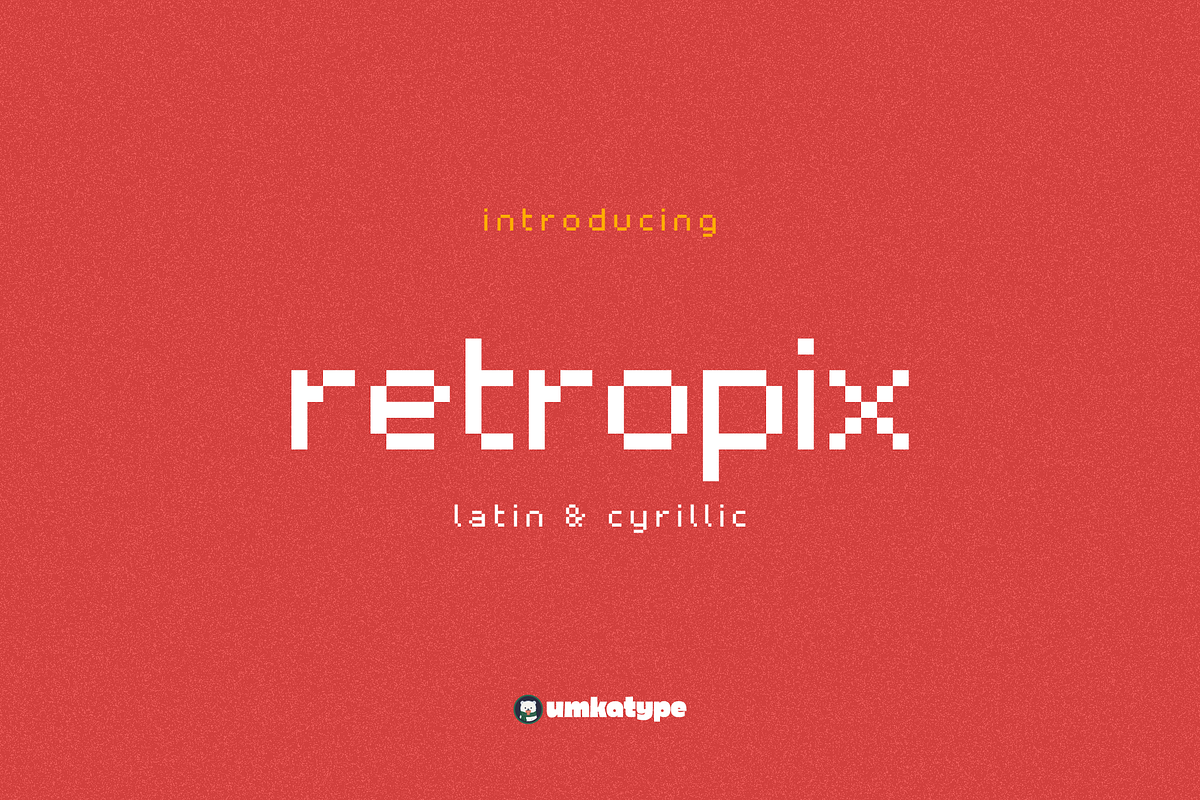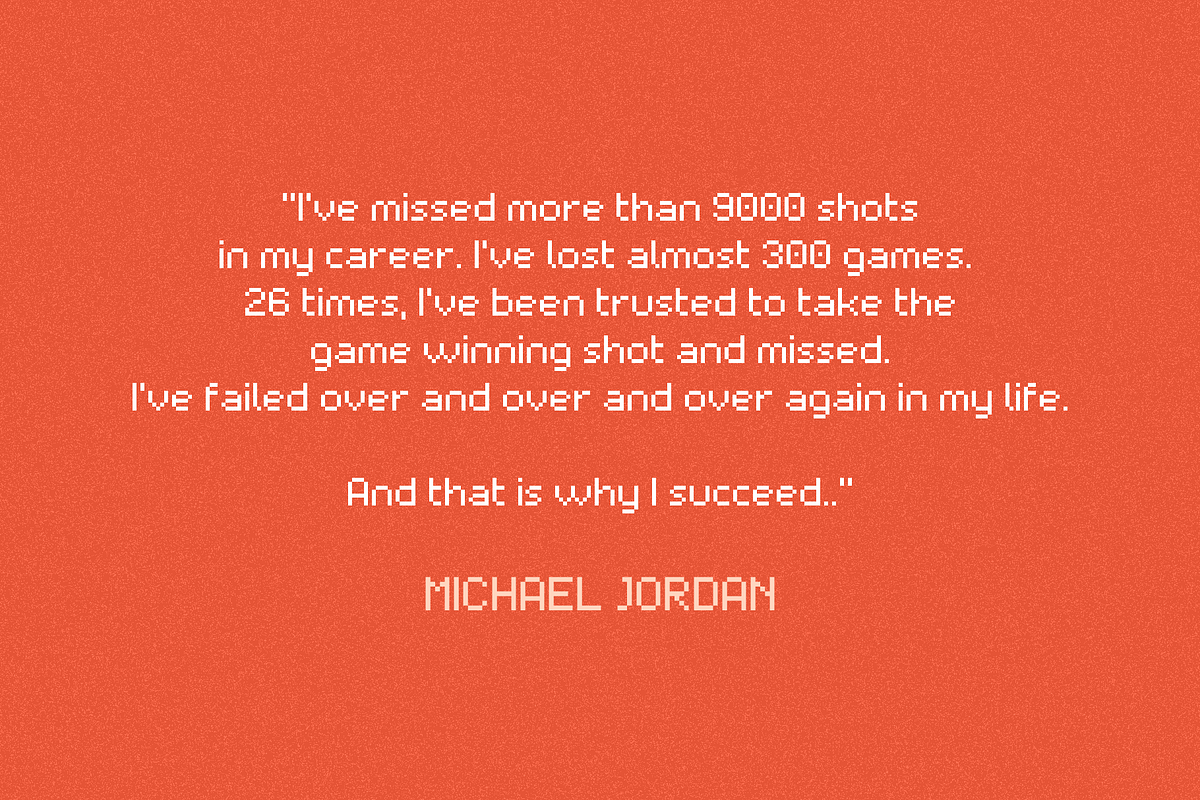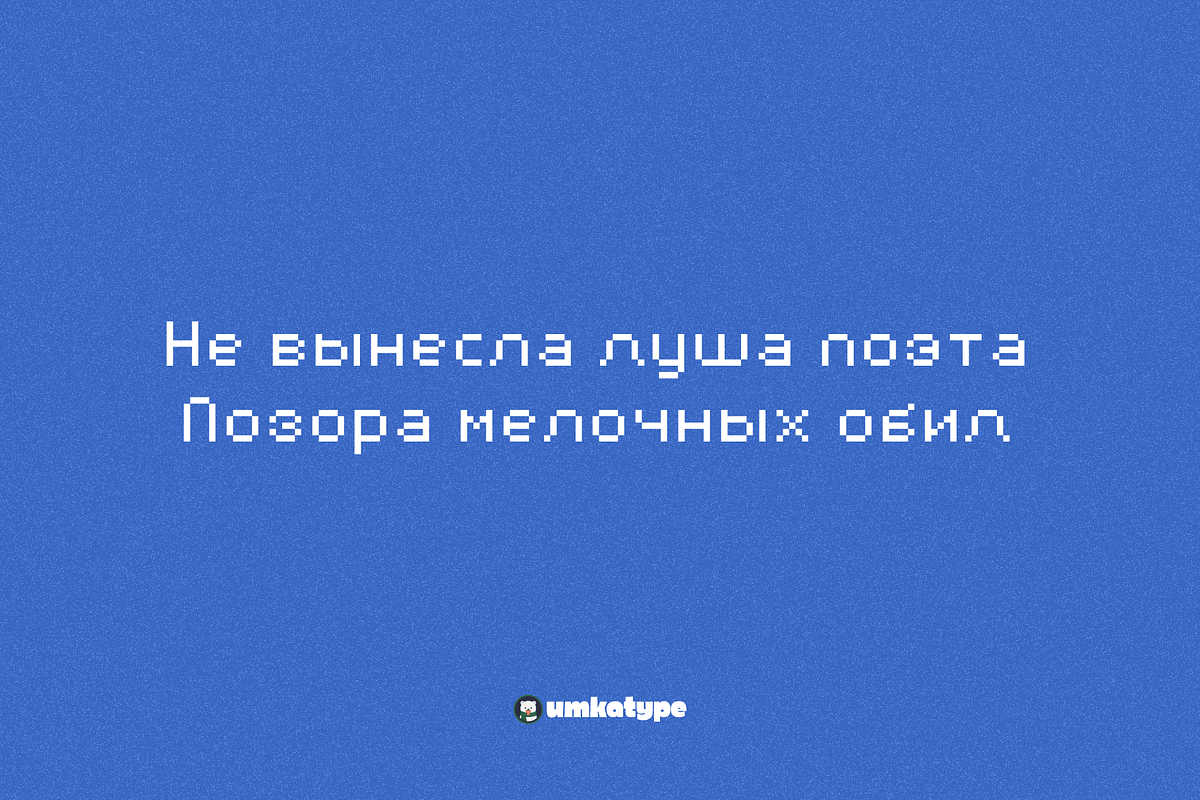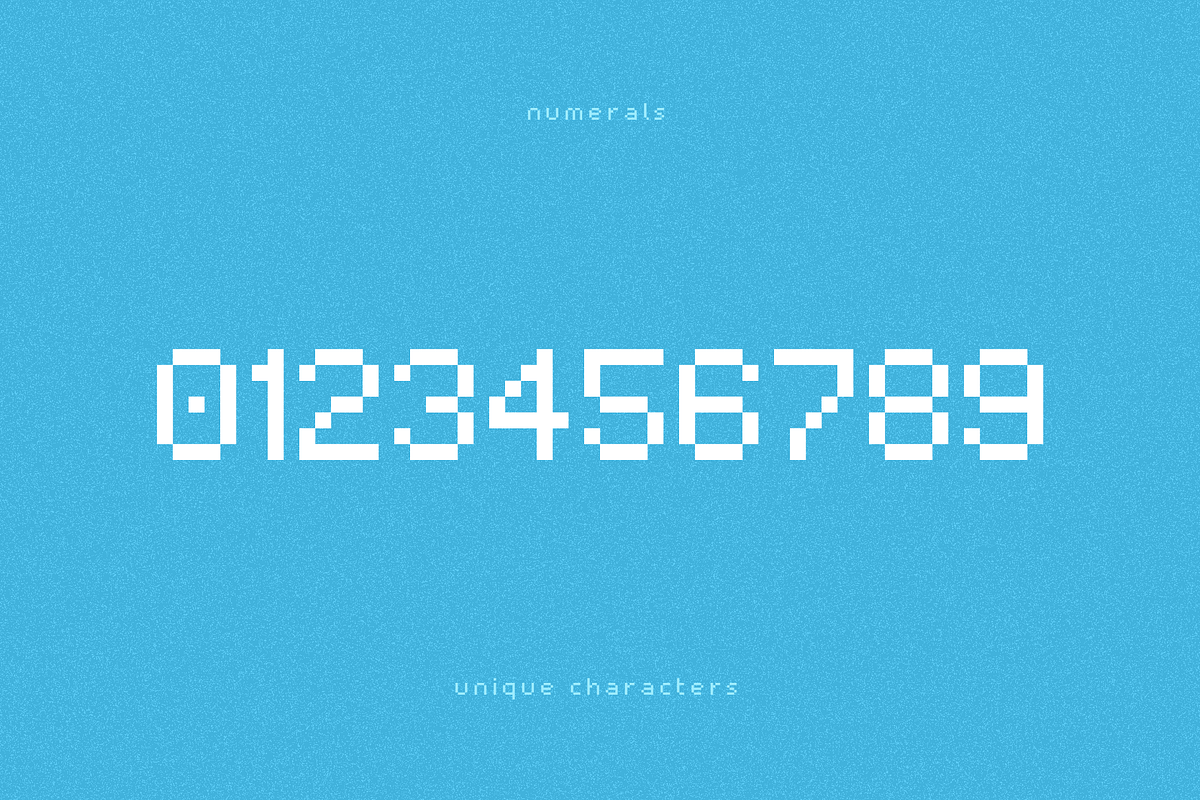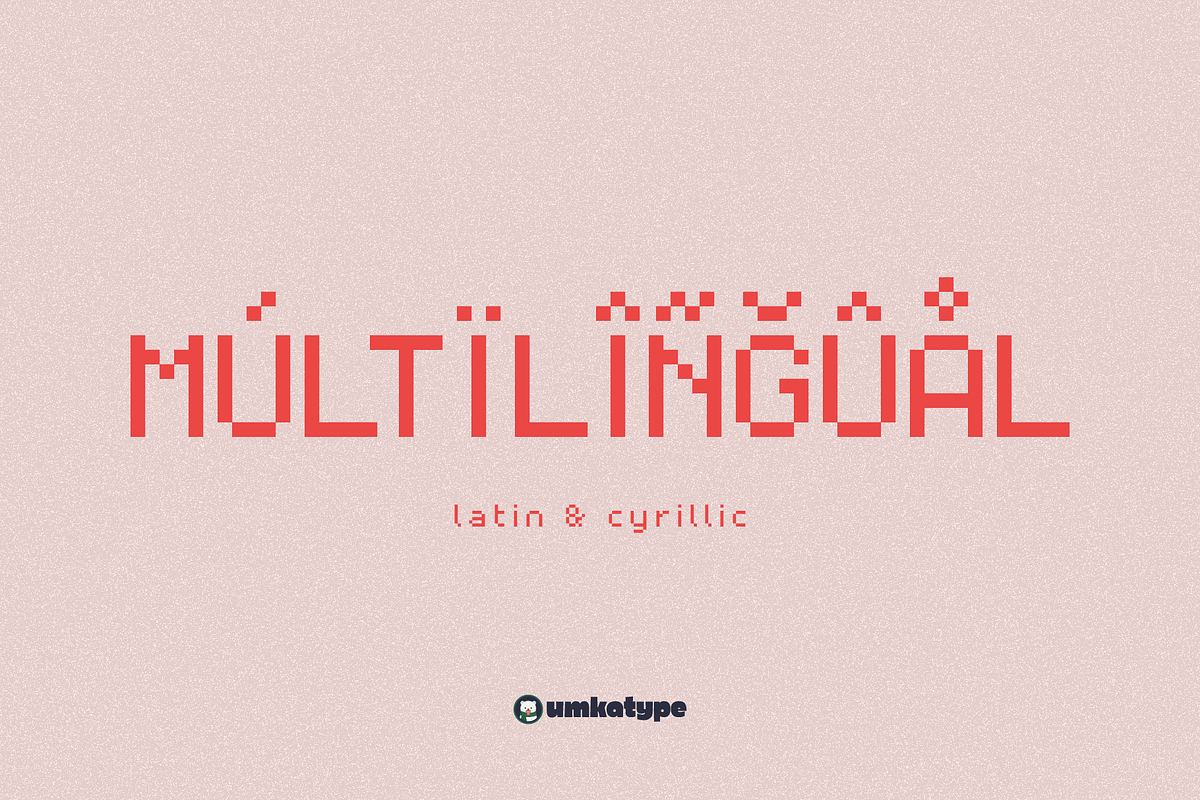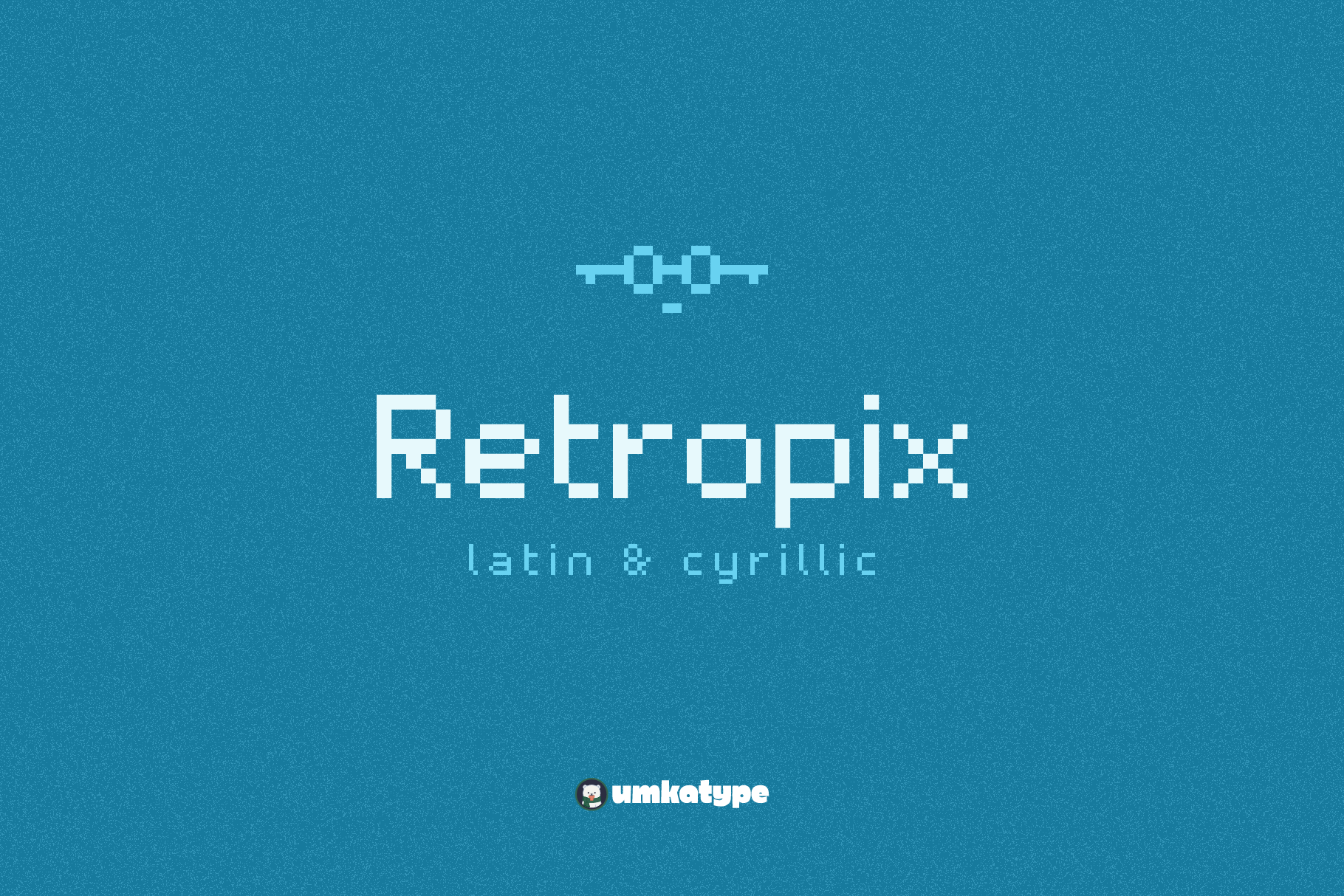
Retropix Pixel Game Font
Retropix - A Display Font
- Retropix is a carefully crafted font.
- Multilingual: It has Extended Latin and Extended Cyrillic letters.
Retropix created for games, web design, branding and social media works.